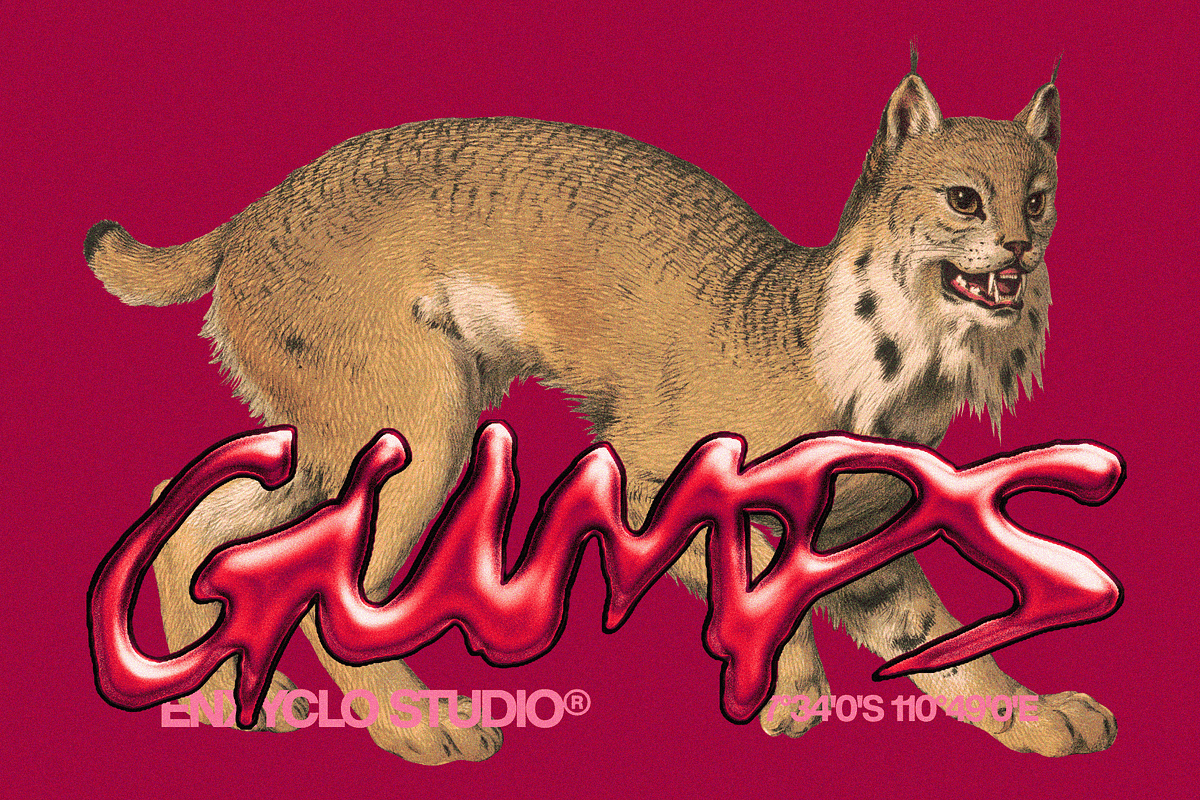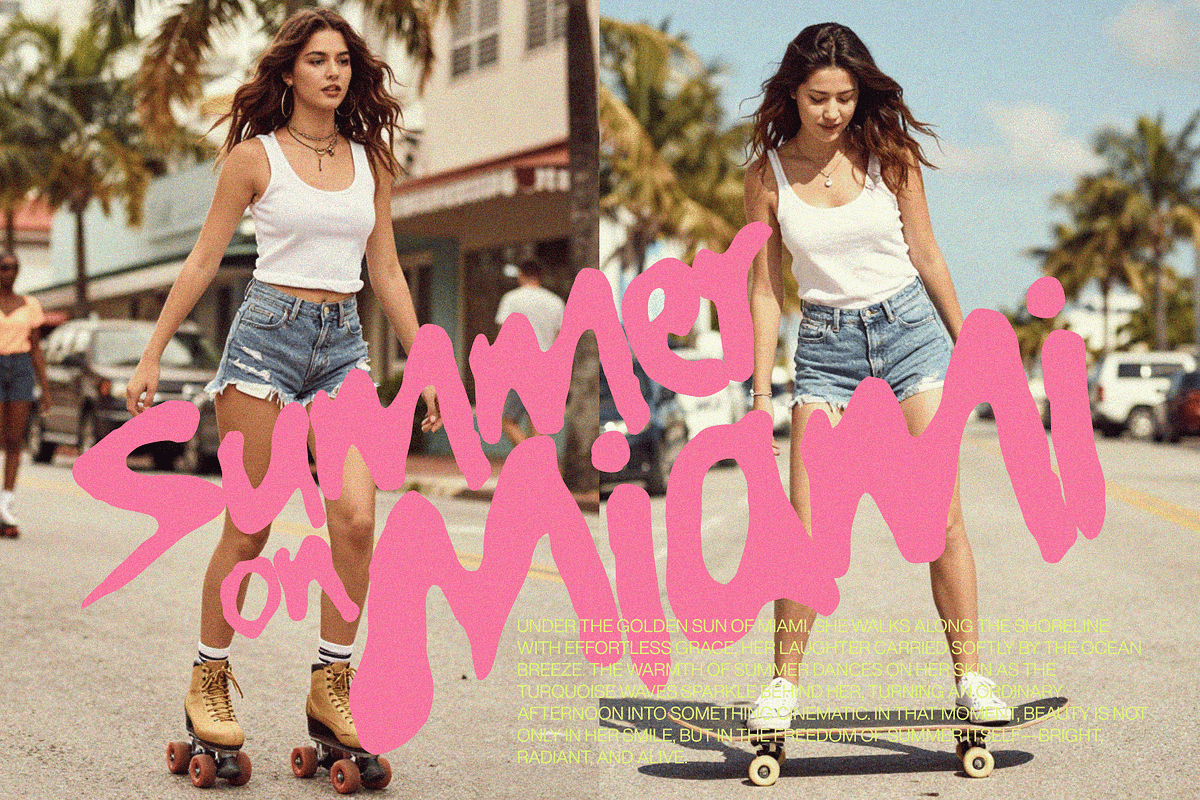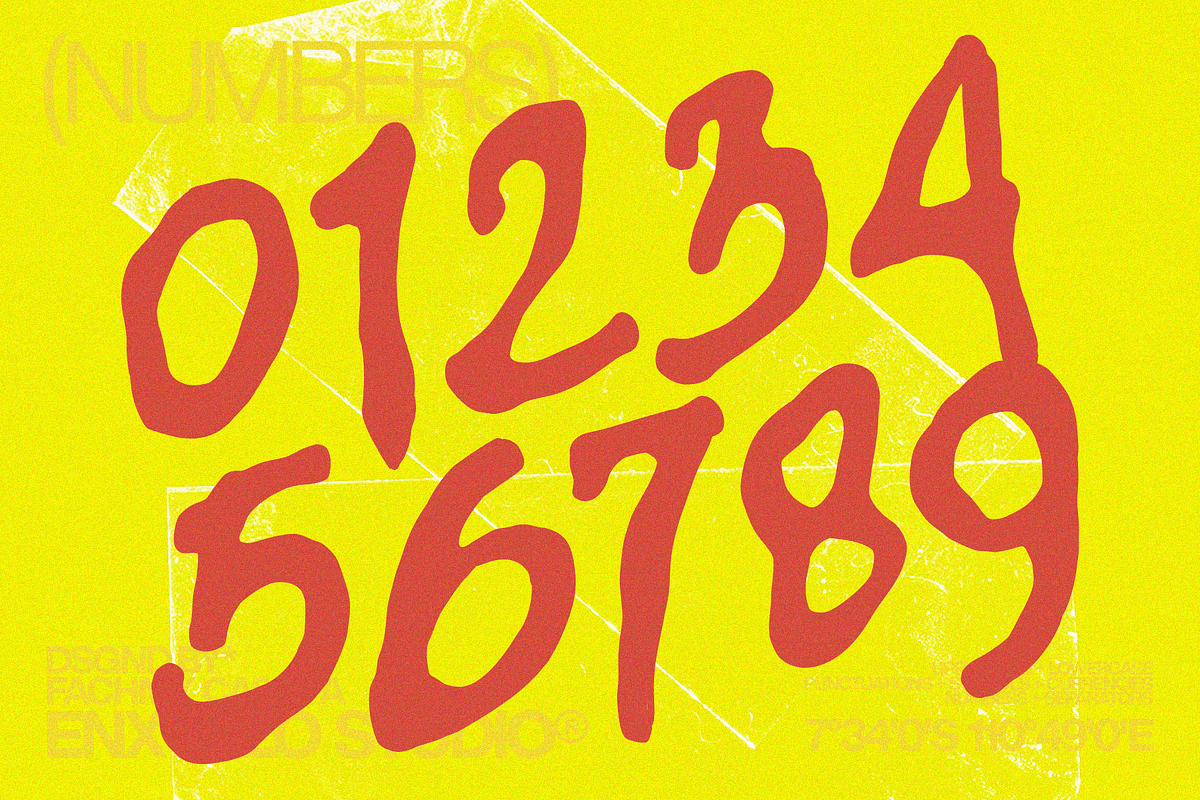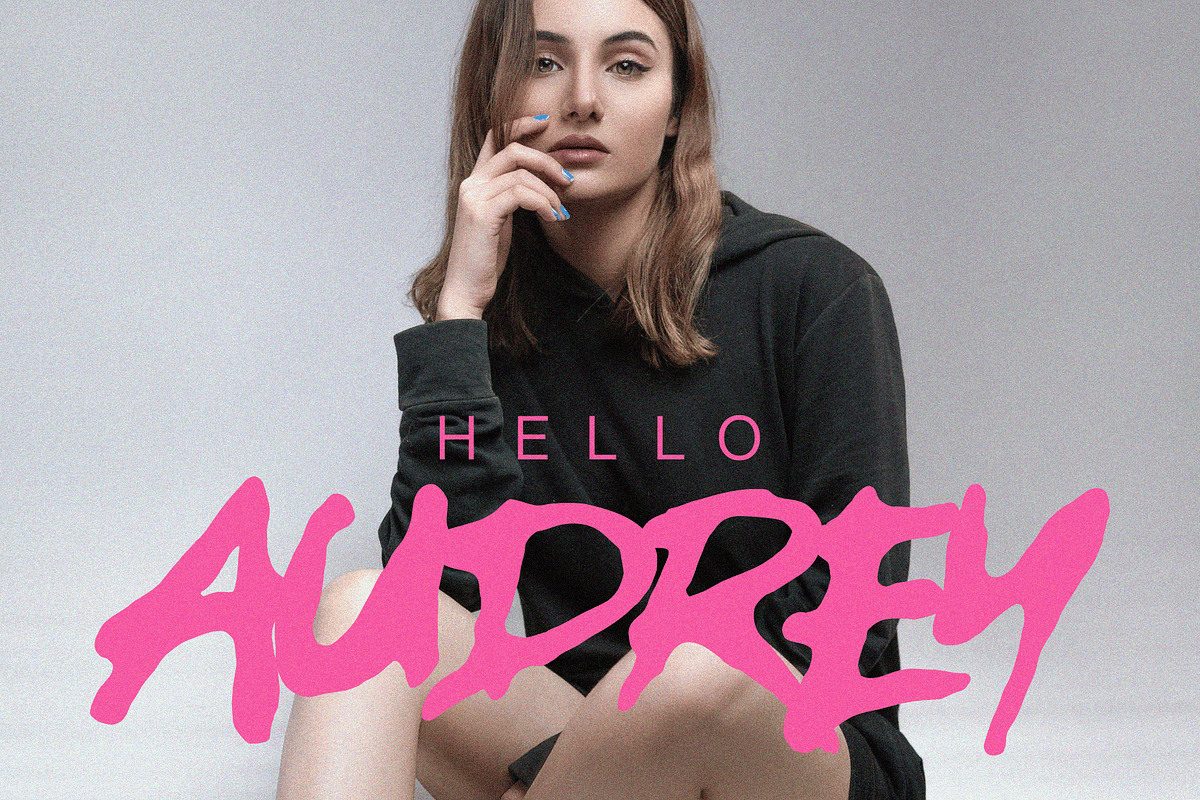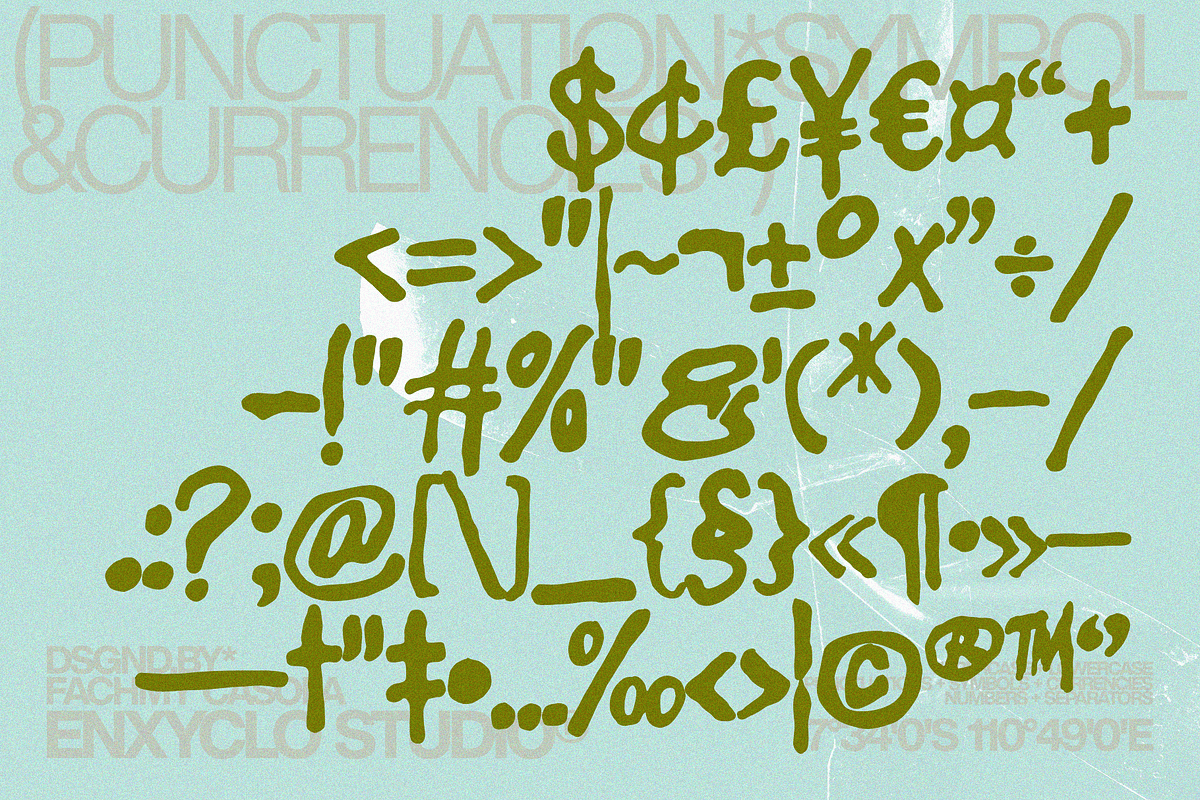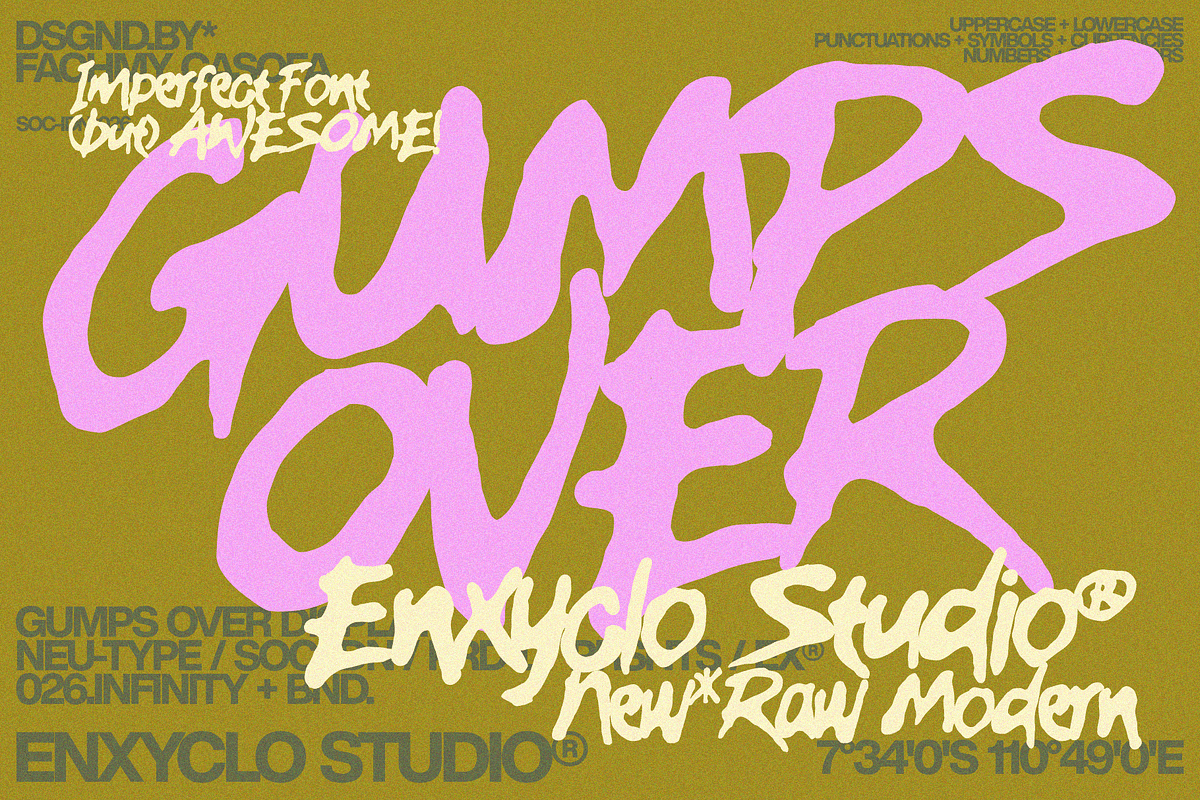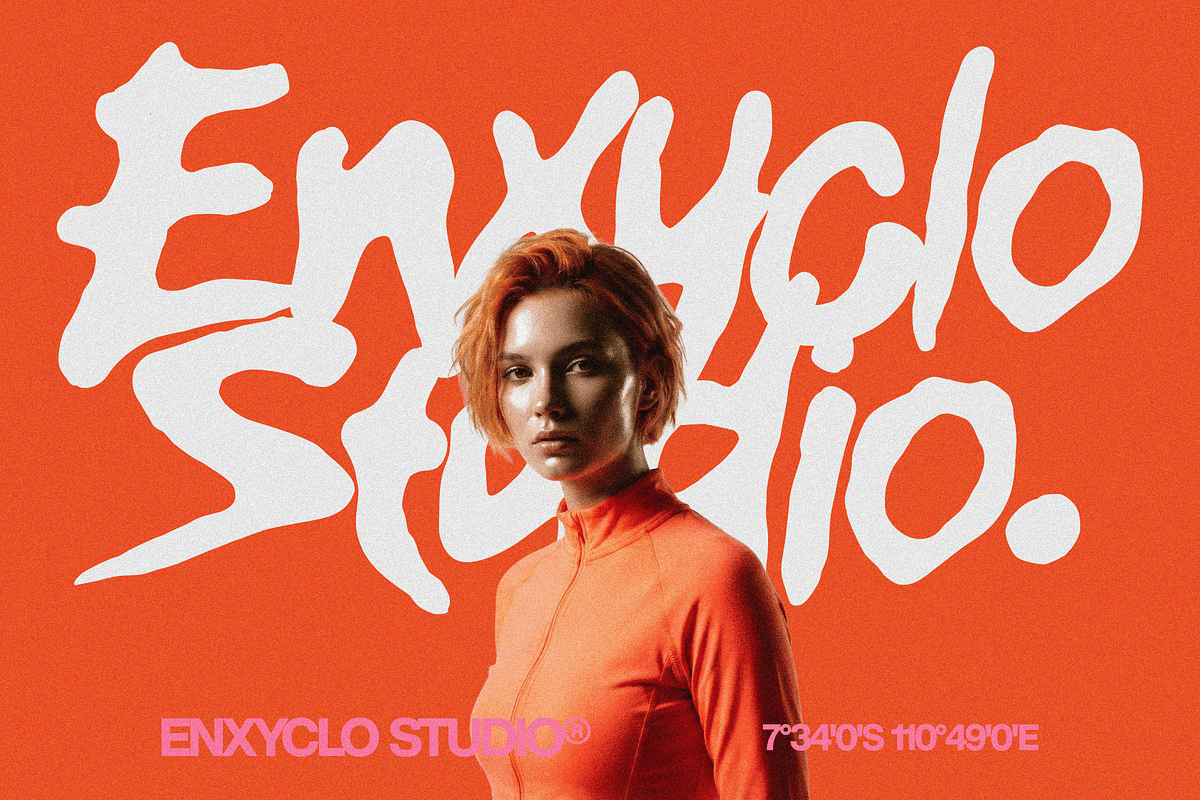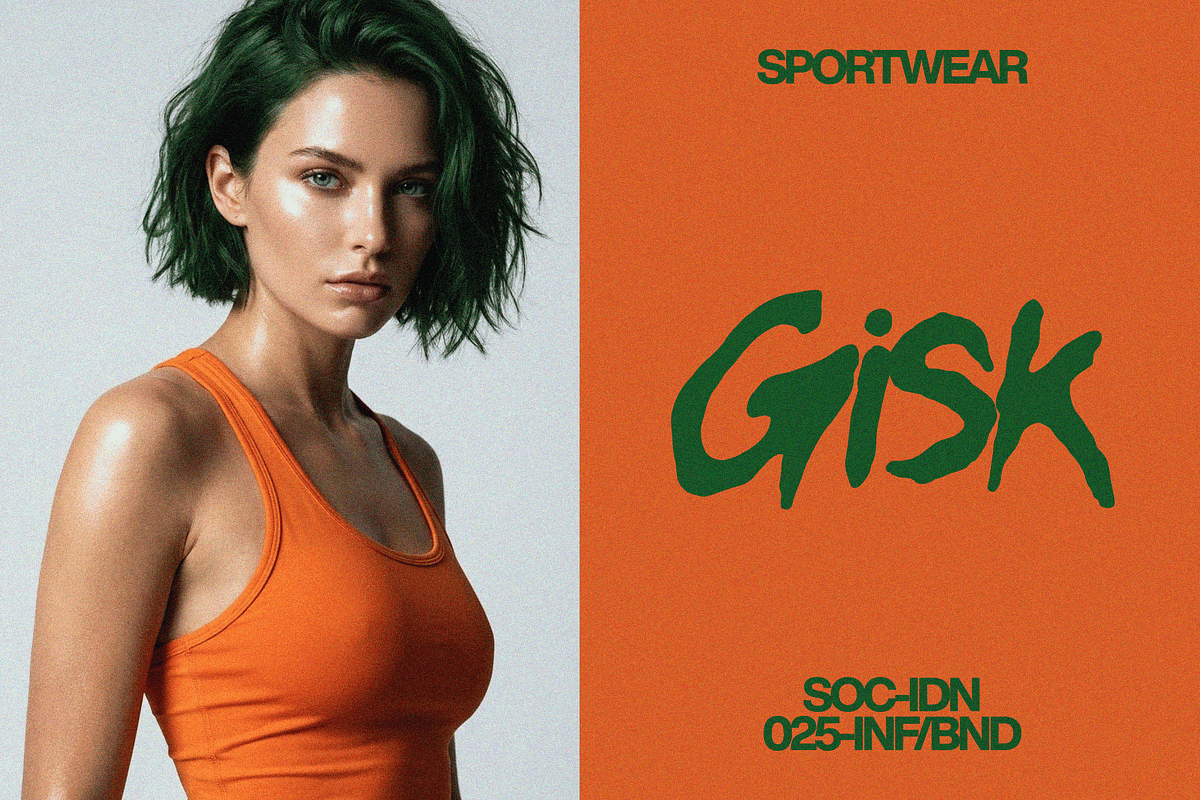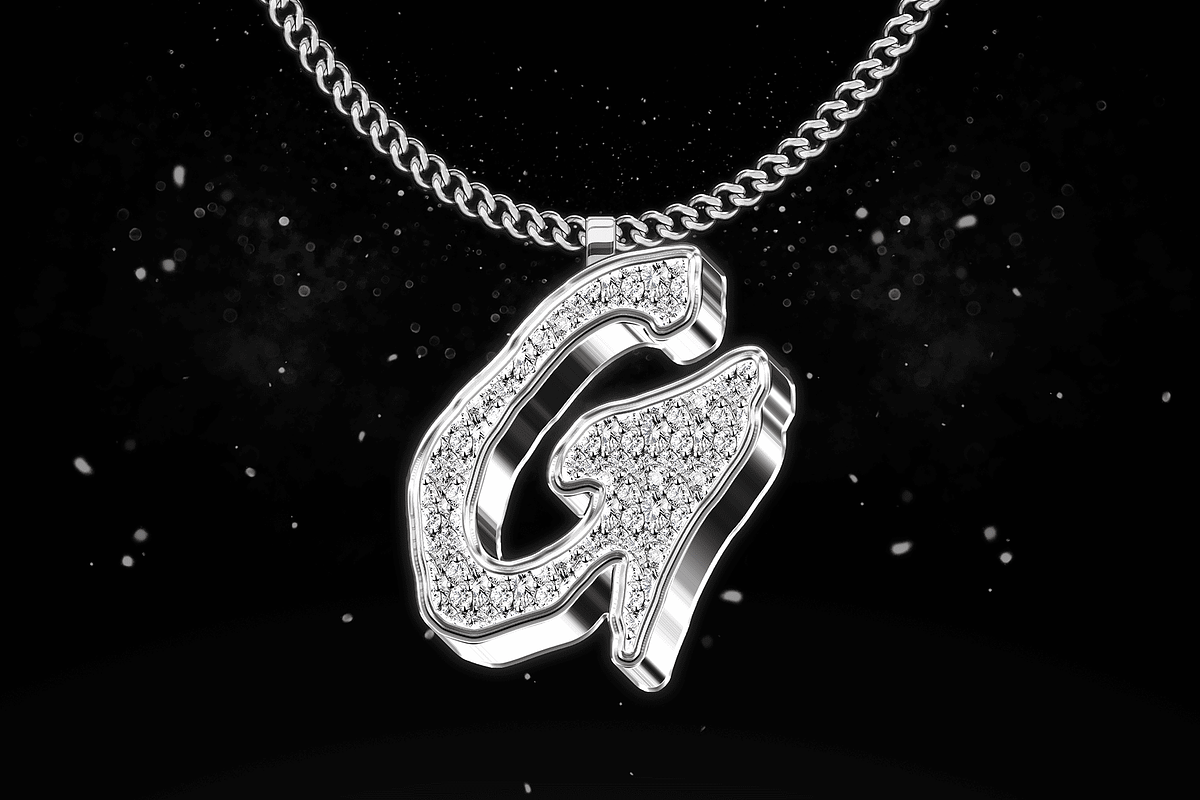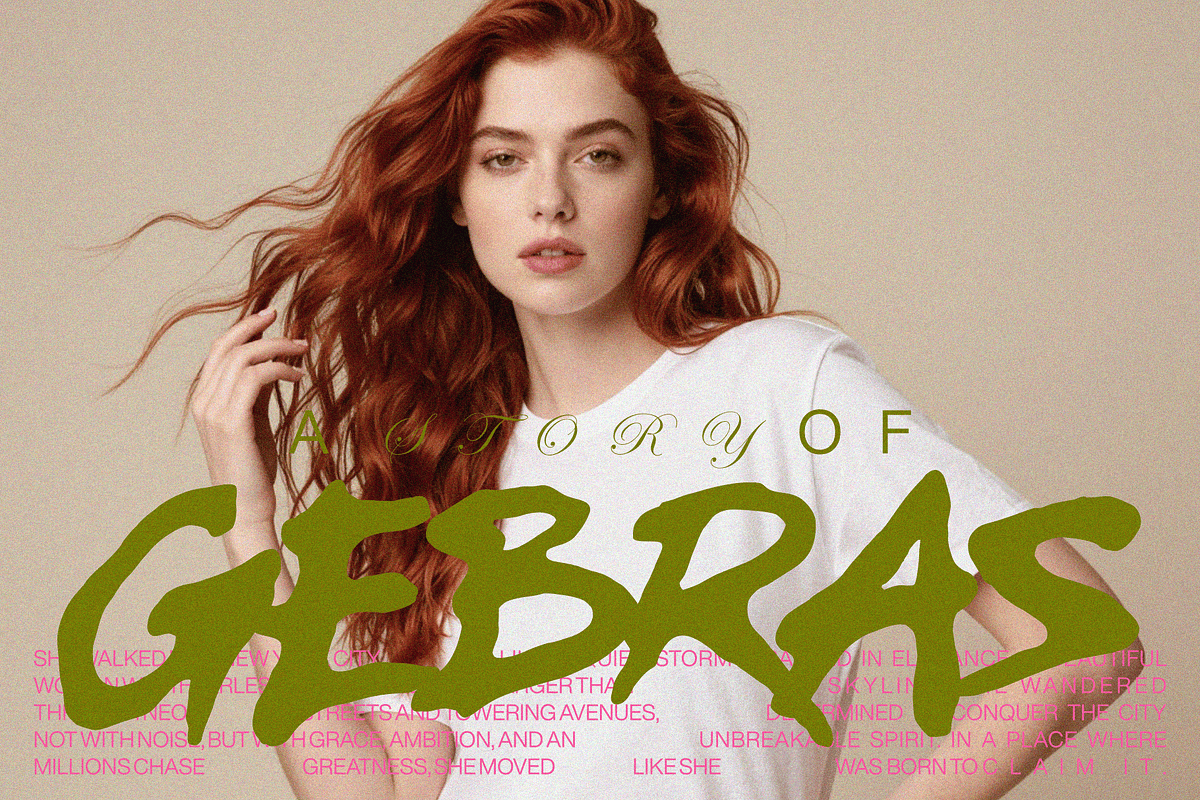
GUMPS OVER — Raw Imperfect Font
GUMPS OVER is a gritty handdrawn urban and industrial font built with attitude, energy, and raw character. Inspired by industrial textures, street lettering, and imperfect brush strokes, this typeface embraces the beauty of rough, expressive forms that feel bold, authentic, and unapologetically modern.
Every letter is crafted with a handdrawn feel that highlights raw movement and natural imperfections. The rough brush texture and expressive strokes create a powerful visual presence, making GUMPS OVER perfect for designs that need a strong urban voice. Its bold structure keeps the font readable while maintaining the gritty personality that defines street-inspired typography.
Blending industrial aesthetics with a modern design approach, GUMPS OVER delivers a unique balance between raw artistic energy and functional branding typography. This expressive brush font is ideal for creating impactful logo designs, bold brand logos, and modern visual identities that demand attention.
If you're looking for a typeface that feels raw, urban, and full of character, GUMPS OVER brings the perfect mix of gritty attitude and bold modern style.
- Uppercase letters
- Lowercase letters
- Punctuation marks
- Symbol set
- Currency symbols
PERFECT FOR
- Creative logo & logotype design
- Branding & brand identity
- Modern agency visuals
- Contemporary packaging
- Poster & headline design
- Social media graphics
- Creative campaigns & visual storytelling